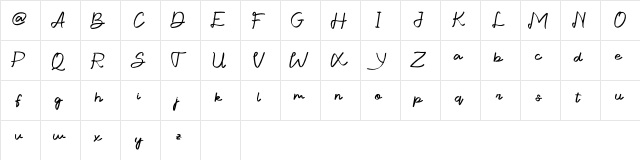
Arguetta Regular
| Designer | Dedi Agus Setiawan |
Design Context for Arguetta Typeface
Arguetta is a composed and adaptable typeface that performs quietly and consistently across a wide range of design contexts.